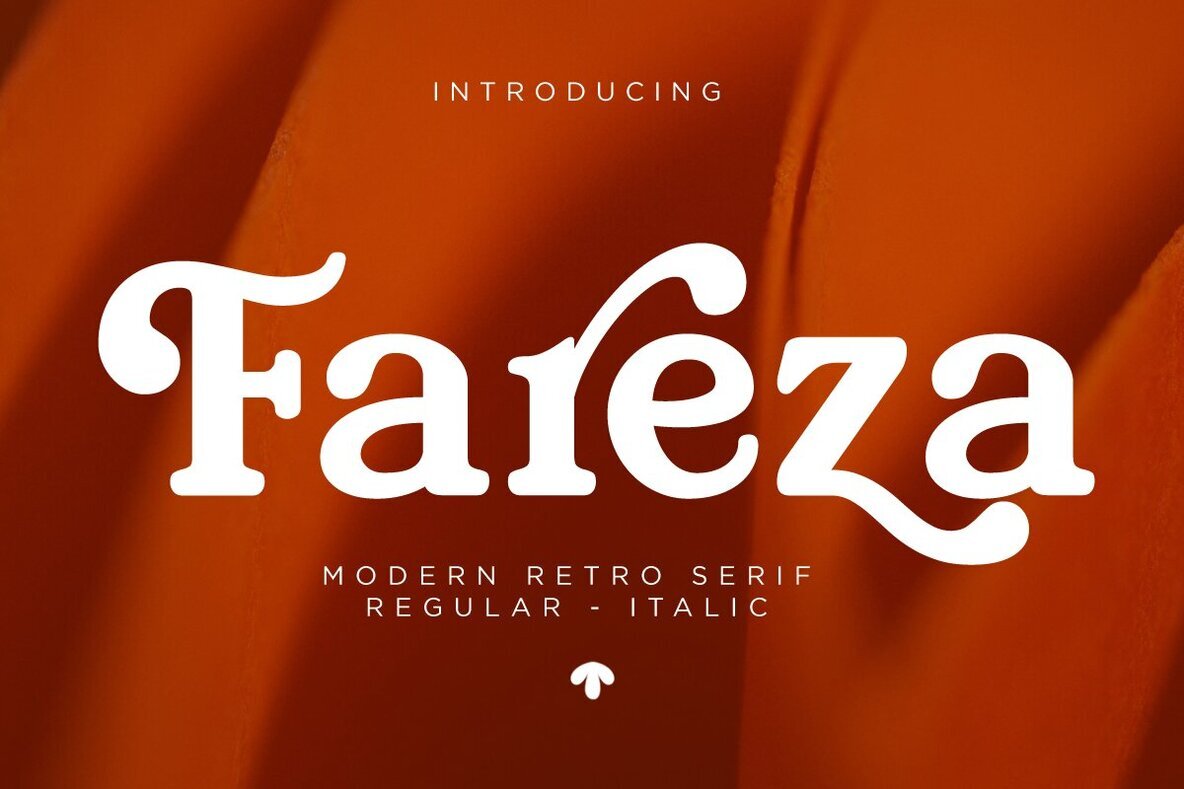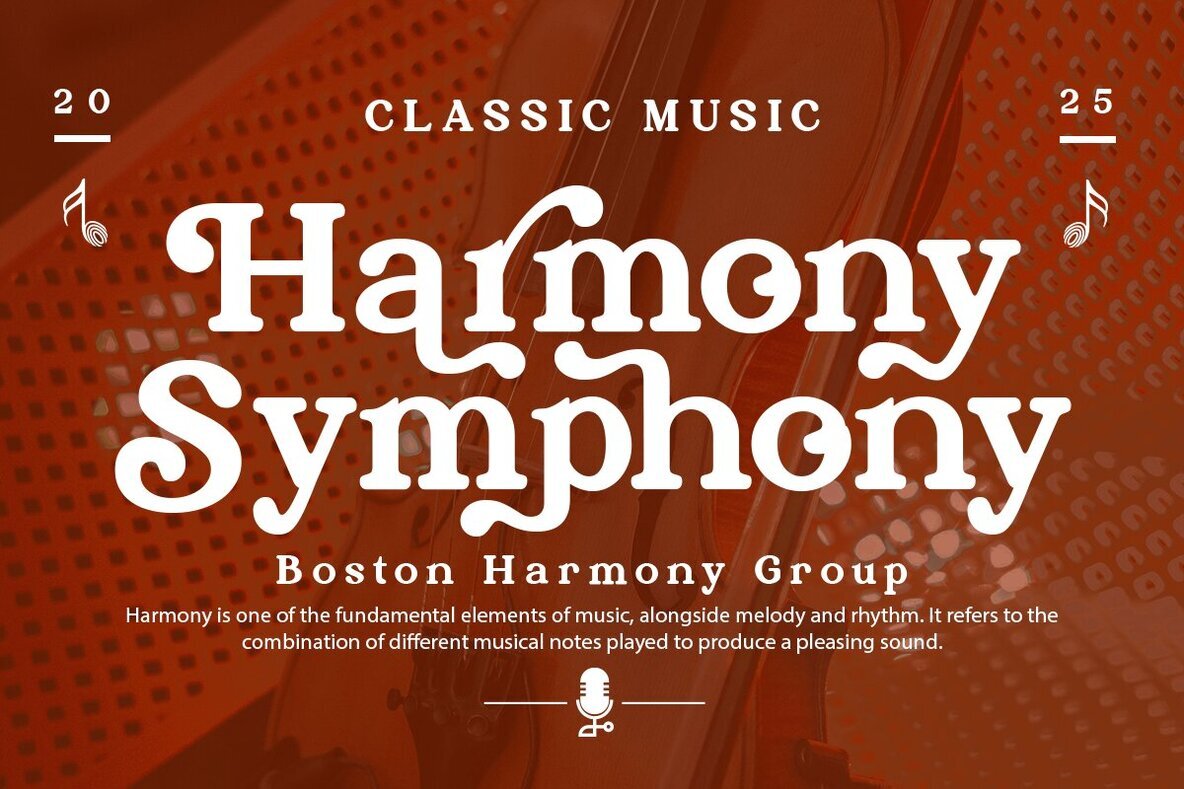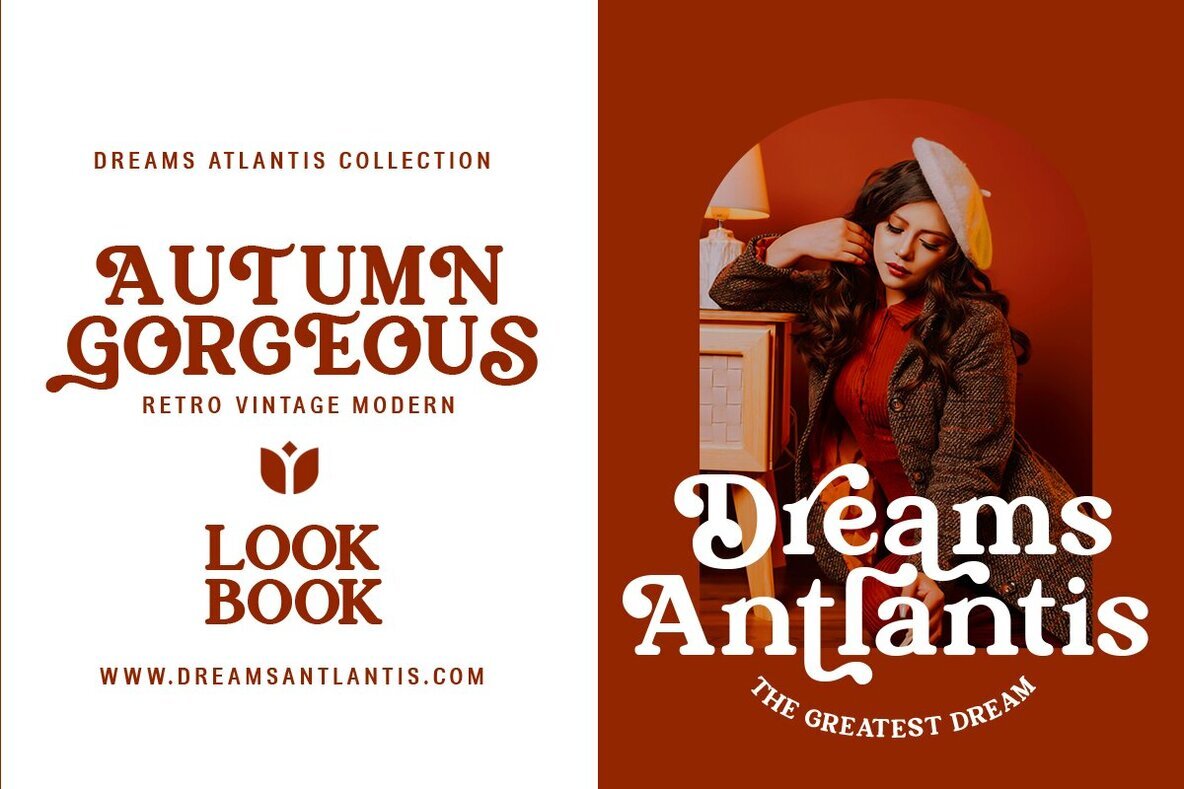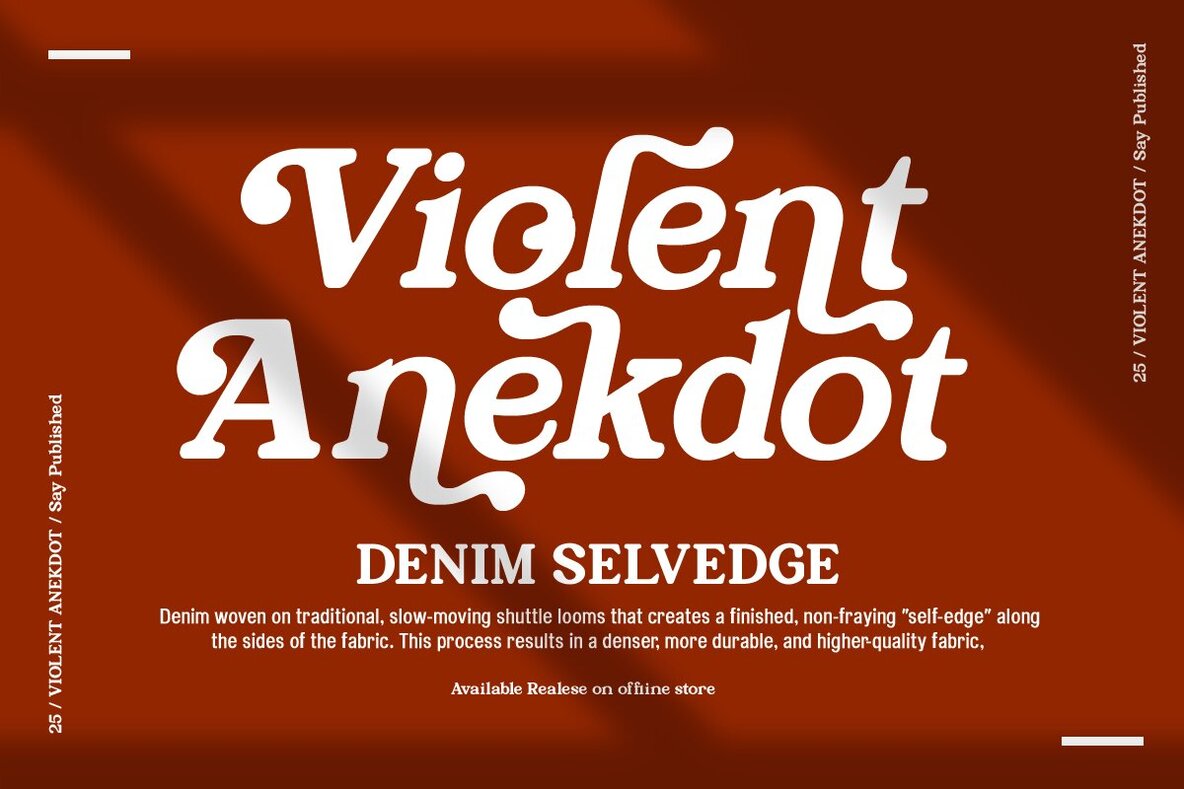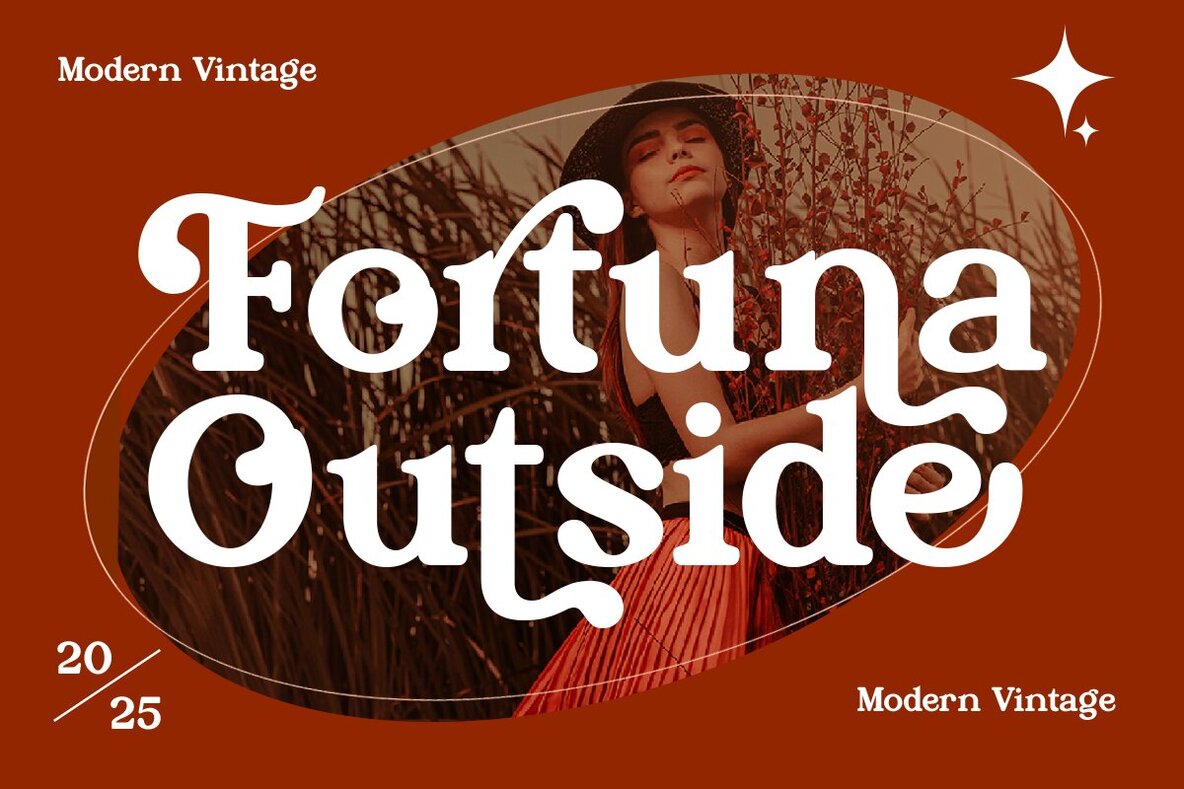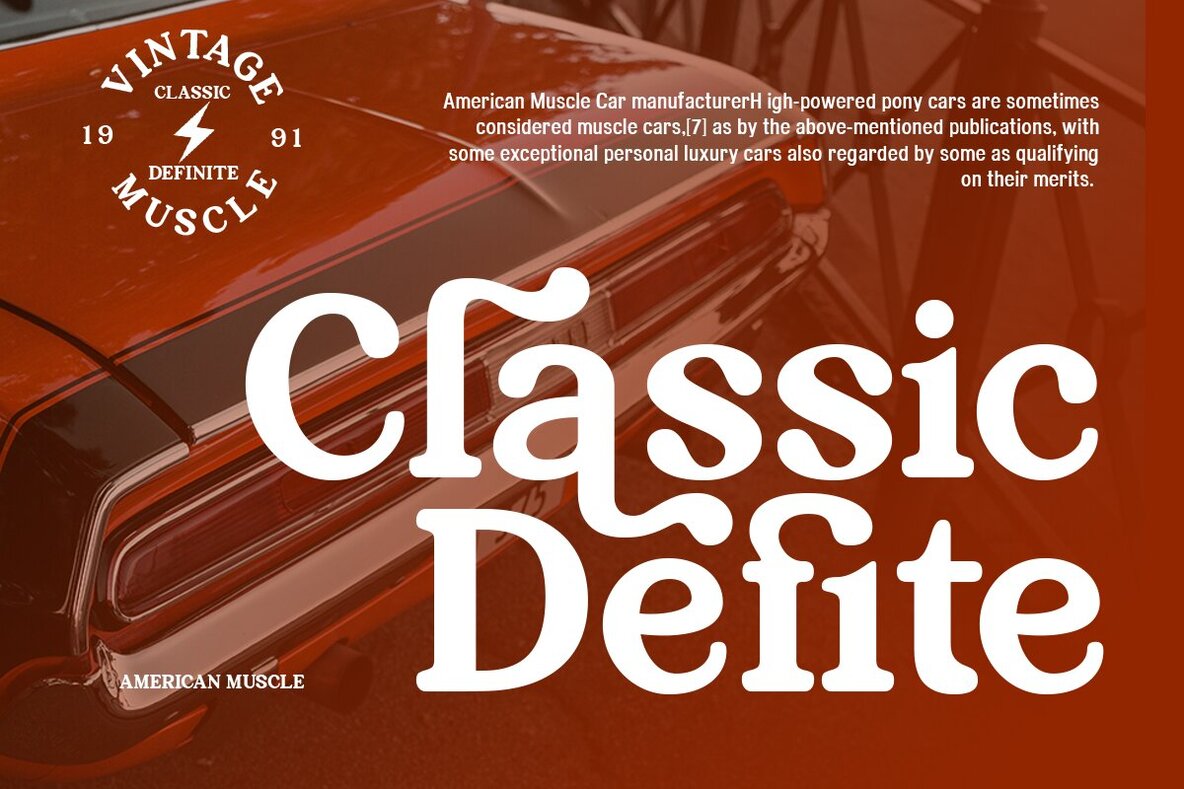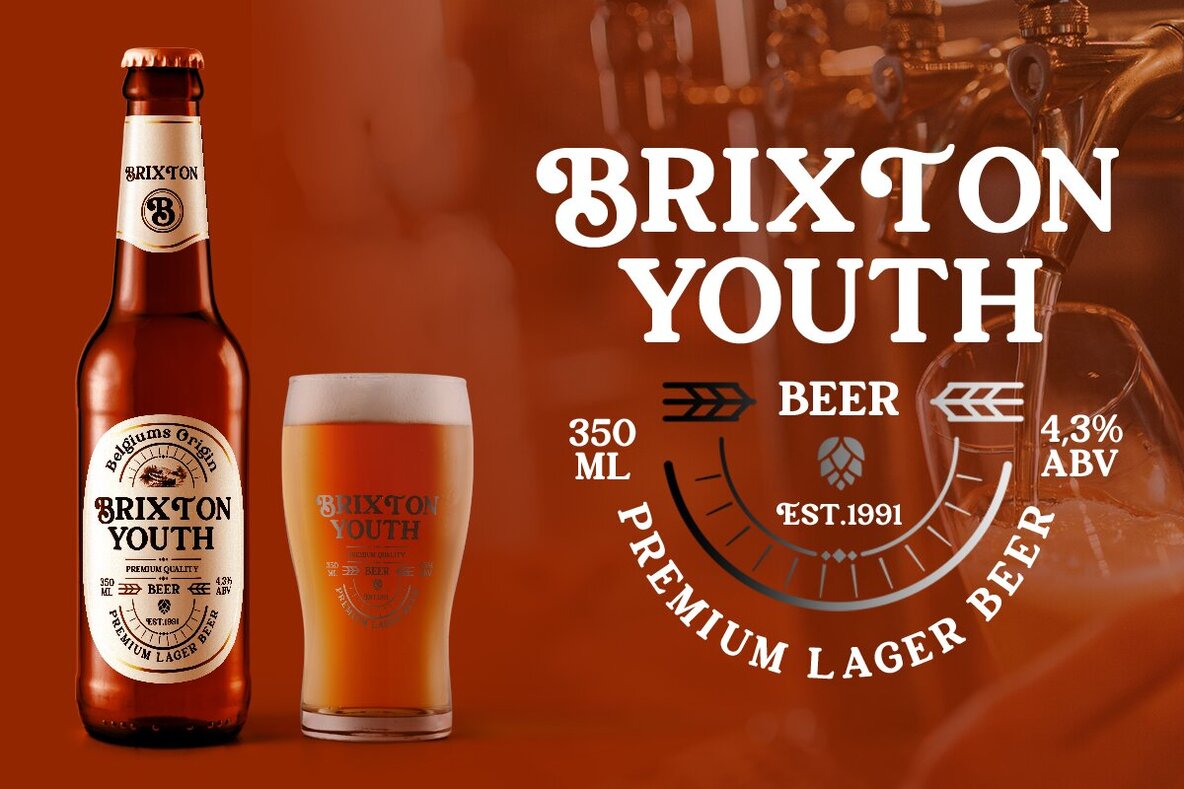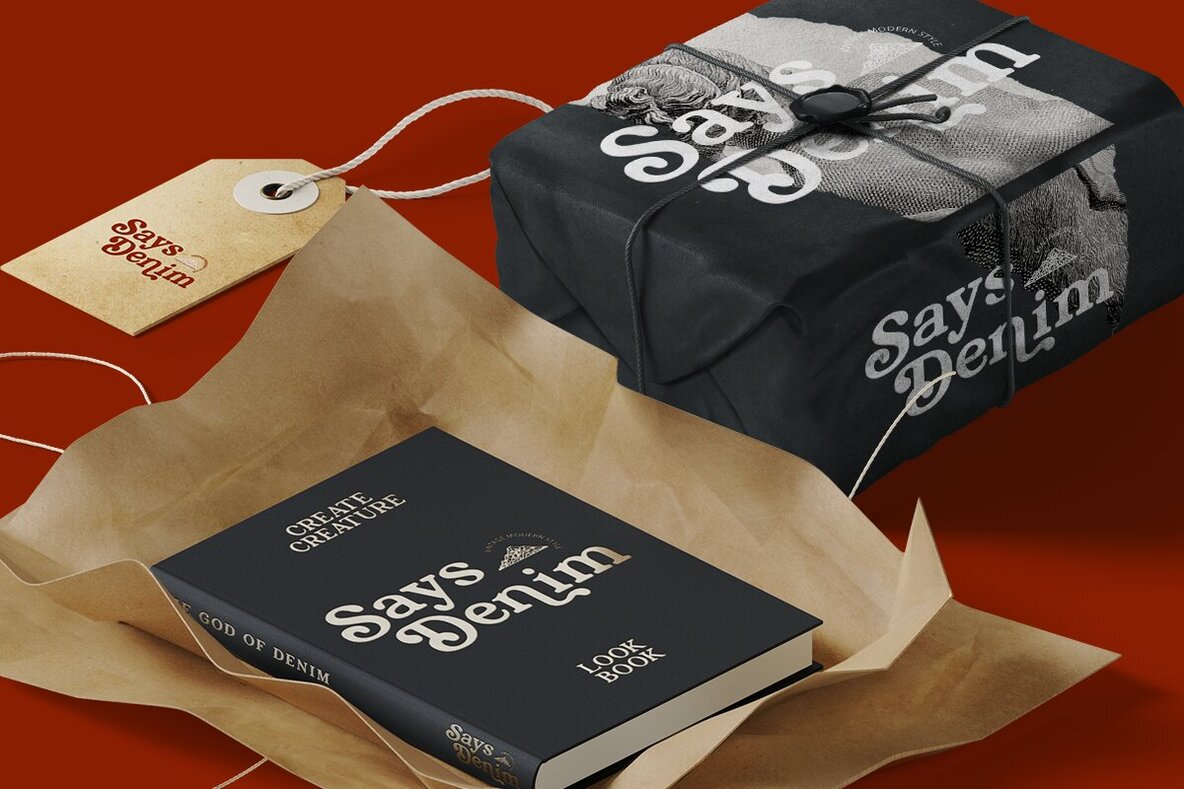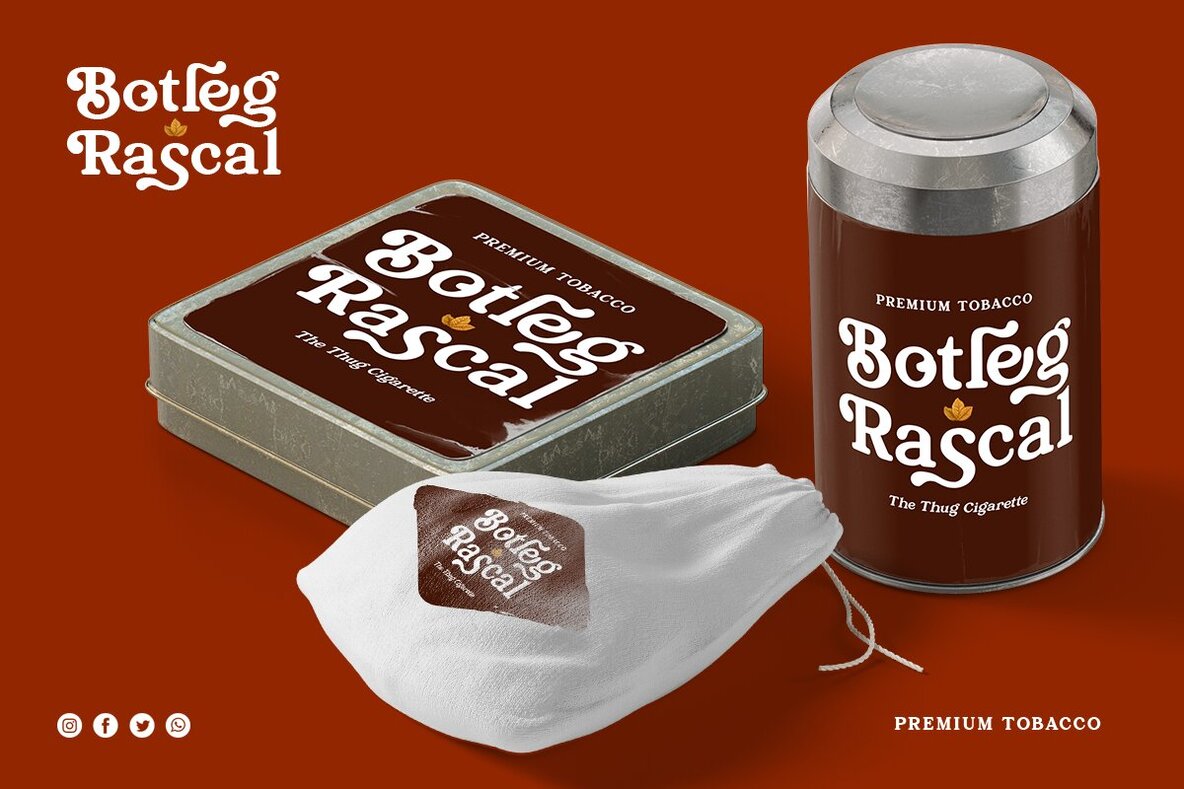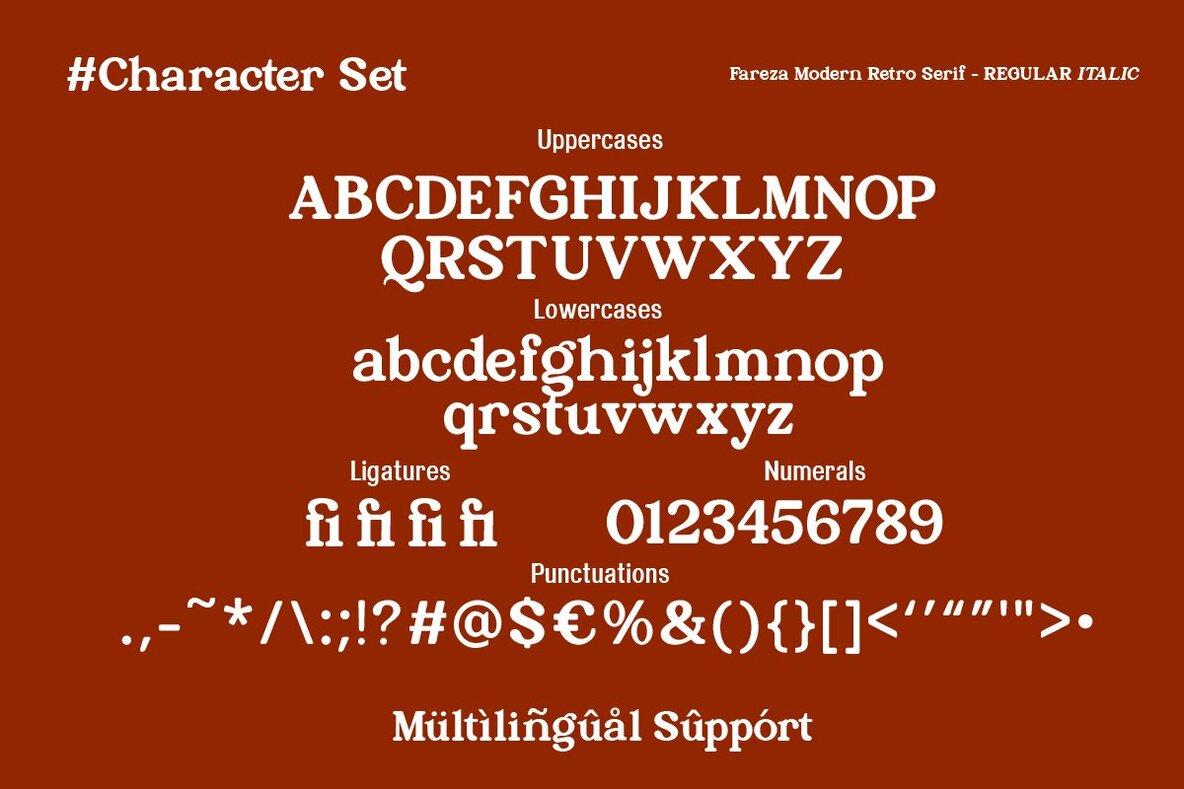
Fareza Font
Fareza blends vintage elegance with contemporary style in a modern retro serif design. Bold curves, unique serifs, and smooth letterforms offer a timeless feel for any project, bringing both character and sophistication. Fareza is well-suited for logos, posters, packaging, book covers, headlines, invitations, and editorial designs where a bold yet refined impression is essential. This typeface is available in both Regular and Italic styles, providing versatility for a range of creative and classic applications. The balance between nostalgic charm and a fresh look makes Fareza a reliable choice for branding needs, vintage-inspired logos, and modern editorial layouts. Its thoughtfully crafted details ensure each letter stands out while maintaining overall harmony and readability.Fareza Modern Retro Serif Font